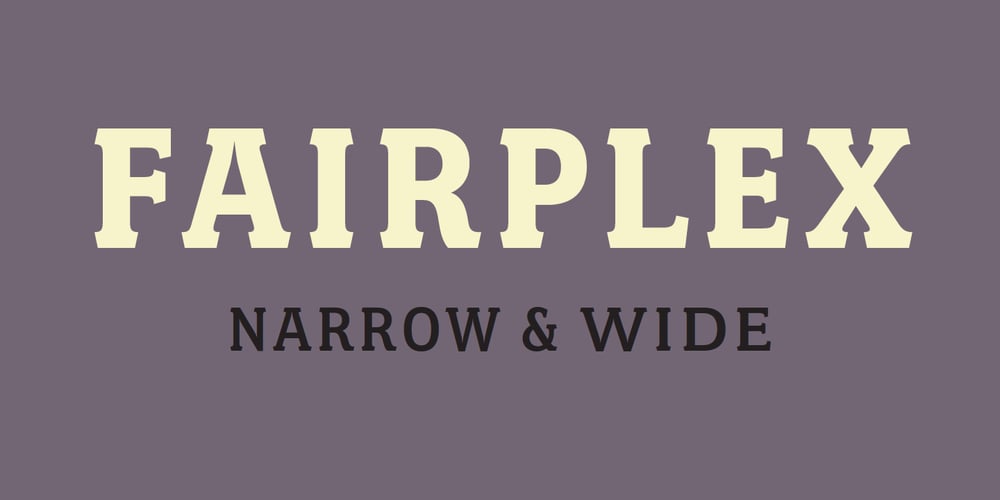
Fairplex Font Family was designed by Zuzana Licko and published by Emigre. Fairplex contains 16 styles and family package options. Zuzana Licko’s goal for Fairplex was to create a text face which would achieve legibility by avoiding contrast, especially in the Book weight. As a result of its low contrast, the Fairplex Book weight is somewhat reminiscent of a sans serif, yet the slight serifs preserve the recognition of serif letterforms. When creating the accompanying weights, the challenge was to balance the contrast and stem weight with the serifs. To provide a comprehensive family, Licko wanted the boldest weight to be quite heavy. This meant that the “Black” weight would need more contrast than the Book weight in order to avoid clogging up. But harmonizing the serifs proved difficult. The initial serif treatments she tried didn’t stand up to the robust character of the Black weight. Several months passed without much progress, and then one evening she attended a talk by Alastair Johnston on his book “Alphabets to Order,” a survey of nineteenth century type specimens. Johnston pointed out that slab serifs (also known as “Egyptians”) are really more of a variation on sans serifs than on serif designs. In other words, slab serif type is more akin to sans-serif type with serifs added on than it is to a version of serif type. This sparked the idea that the solution to her serif problem for Fairplex Black might be a slab serif treatment. After all, the Book weight already shared features of sans-serif types. Shortly after this came the idea to angle the serifs. This was suggested by her husband, and was probably conjured up from his years of subconscious assimilation of the S. F. Giants logo while watching baseball, and reinforced by a similar serif treatment in John Downer’s recent Council typeface design. The angled serifs added visual interest to the otherwise austere slab serifs. The intermediate weights were then derived by interpolating the Book and Black, with the exception of several characters, such as the “n,” which required specially designed features to avoid collisions of serifs, and to yield a pleasing weight balance. A range of weights was interpolated before deciding on the Medium and Bold weights.